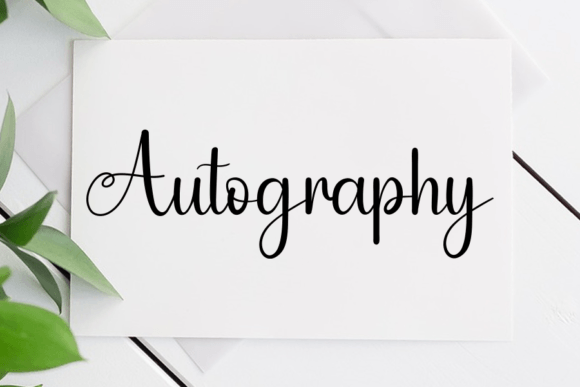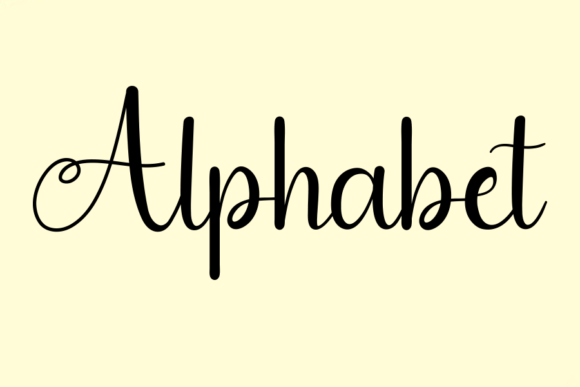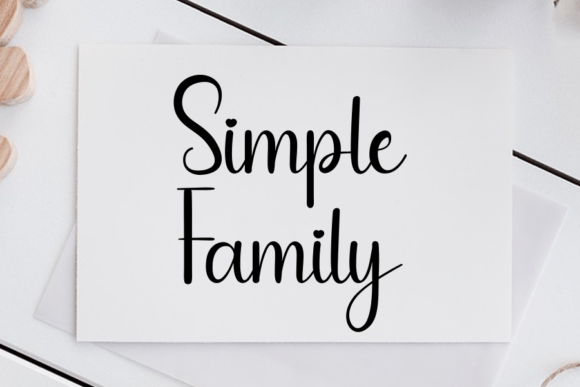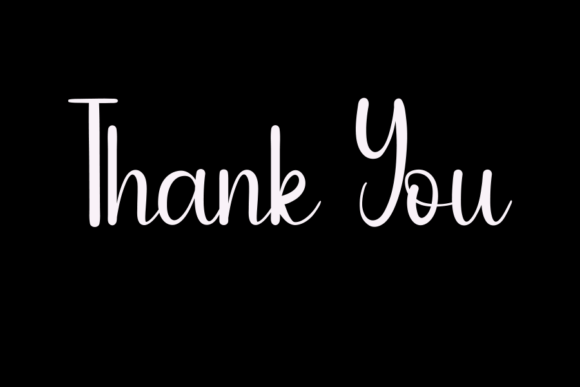
Introducing Autumn Font: A Simple yet Versatile Handwritten Font
As the seasons change and autumn leaves start to fall, designers and crafters are on the lookout for fonts that evoke a sense of warmth and coziness. If you’re searching for a font that can add a simple and natural feel to your next project, look no further than Autumn Font. This beautiful handwritten font is perfect for a wide range of applications, from greeting cards to headlines, and is sure to become a staple in your design toolkit.
What is Autumn Font?
Autumn Font is a simple handwritten font that is characterized by its clean lines, flowing curves, and natural feel. The font has a unique, personal touch that makes it perfect for designs that require a human touch. Whether you’re creating a greeting card, a poster, or a social media graphic, Autumn Font is sure to add a warm and inviting feel to your design.
Key Features of Autumn Font
- Simple and Handwritten: Autumn Font has a simple, handwritten look that is perfect for designs that require a personal touch.
- Versatile: This font is versatile and can be used for a wide range of applications, from greeting cards to headlines.
- Natural Feel: Autumn Font has a natural feel that makes it perfect for designs that require a organic look.
- Easy to Read: The font is easy to read, making it perfect for body text and headlines.
Uses of Autumn Font
Autumn Font is a versatile font that can be used for a wide range of applications. Here are some ideas to get you started:
- Greeting Cards: Use Autumn Font to create beautiful, personalized greeting cards for special occasions.
- Headlines: Use Autumn Font to add a touch of elegance and sophistication to your headlines.
- Posters: Use Autumn Font to create eye-catching posters for events, promotions, and more.
- Social Media Graphics: Use Autumn Font to add a personal touch to your social media graphics.
- Branding: Use Autumn Font to create a consistent brand identity that is warm and inviting.
Tips for Using Autumn Font
Here are some tips for using Autumn Font in your designs:
- Pair with Other Fonts: Autumn Font pairs well with other fonts, such as sans-serif fonts and script fonts.
- Use for Body Text: Autumn Font is easy to read, making it perfect for body text.
- Experiment with Colors: Autumn Font looks great in a variety of colors, from earthy tones to bright and bold colors.
- Add Texture: Add texture to your design by using Autumn Font with a textured background or overlay.